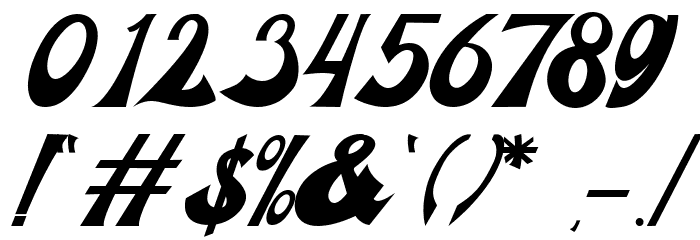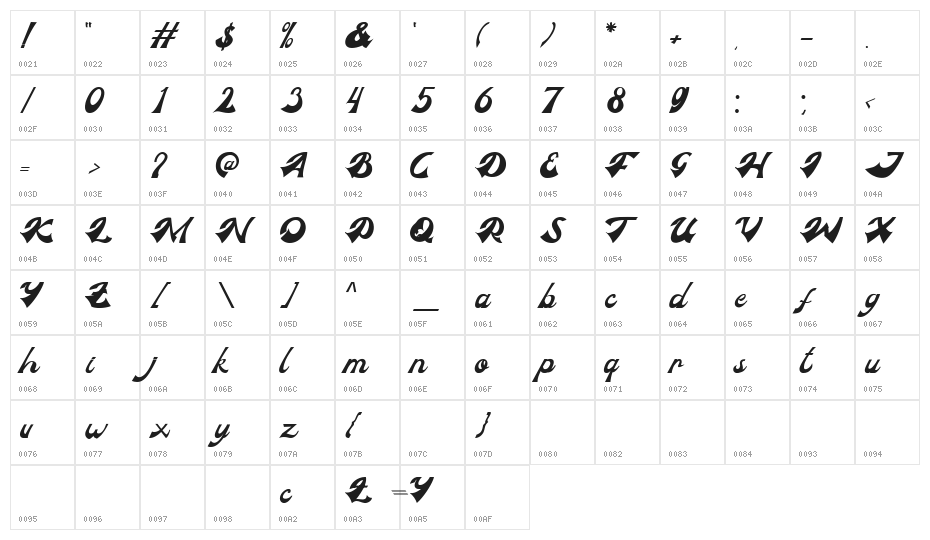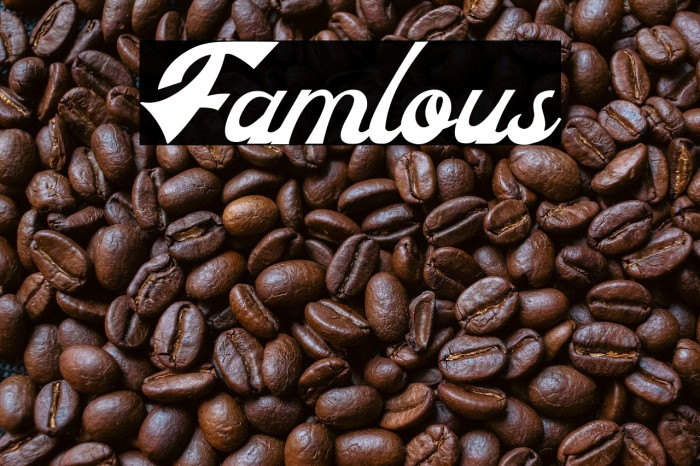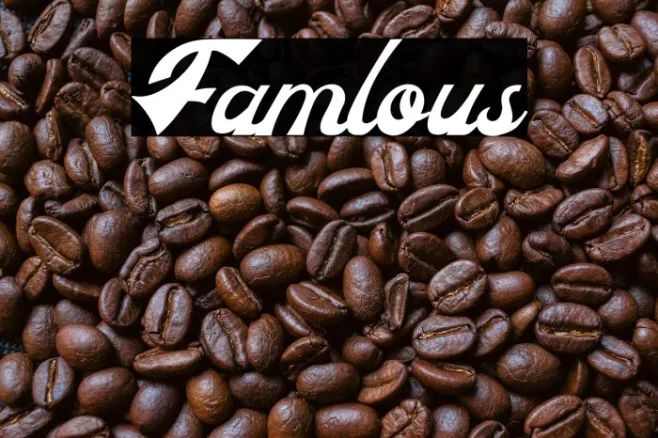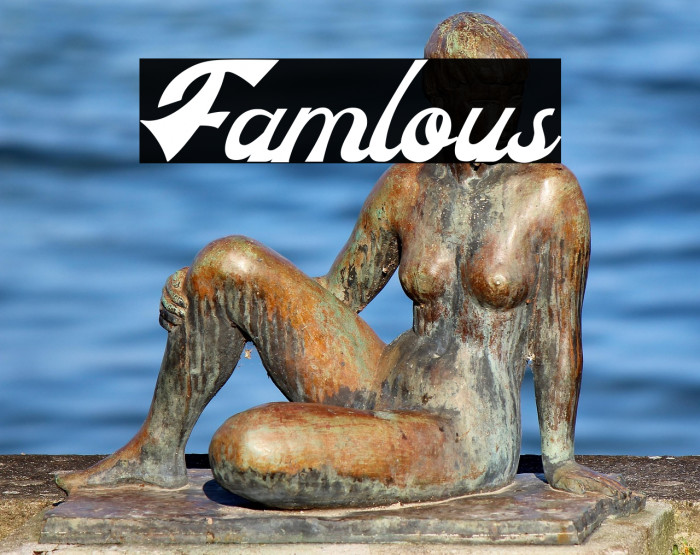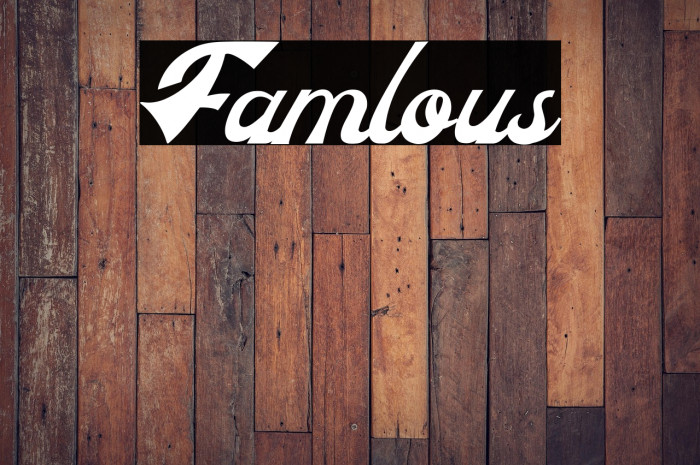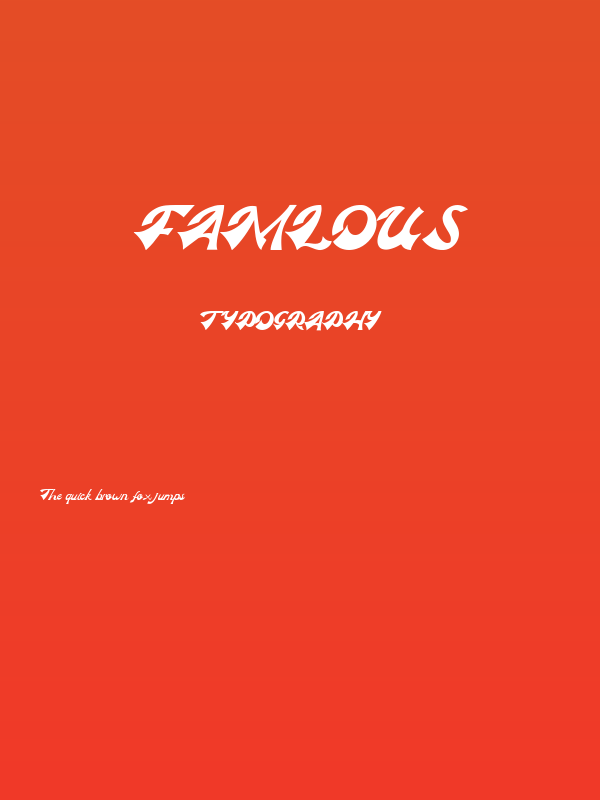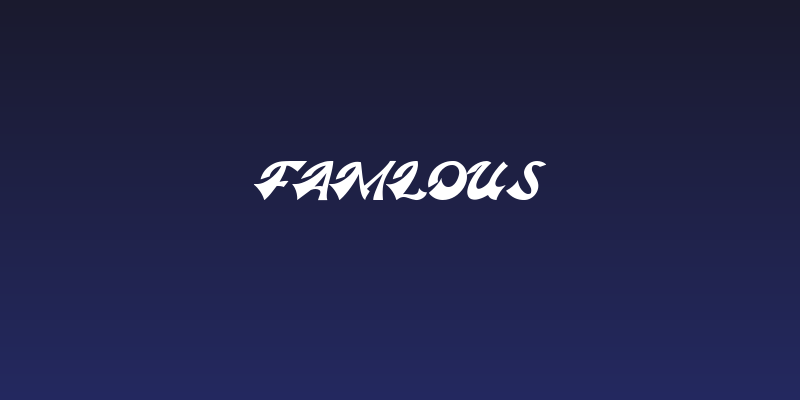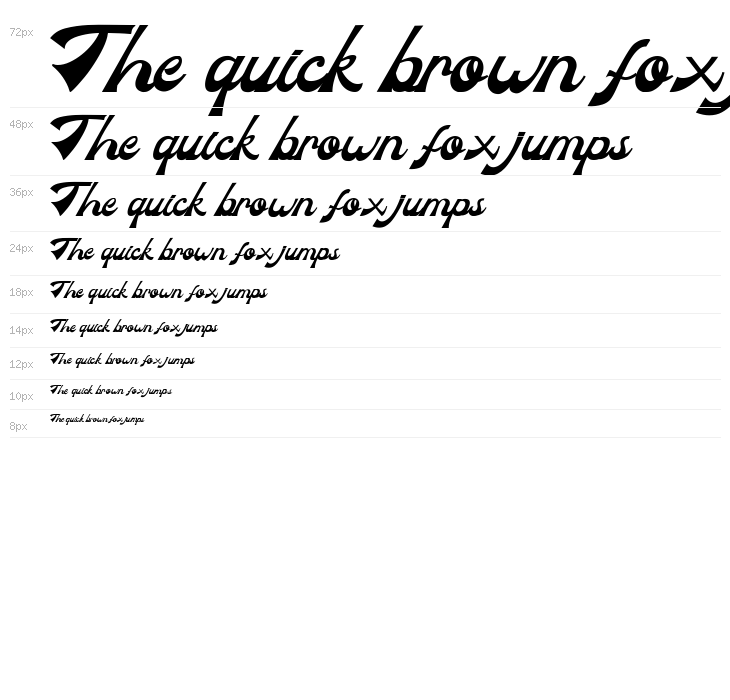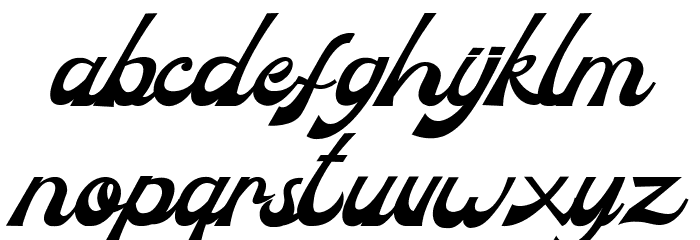
This font features a bold and dynamic script style with a strong sense of movement and flair. The uppercase letters are characterized by sharp, angular strokes that give them a dramatic and energetic appearance. The lowercase letters maintain a fluid and cursive style, enhancing the overall elegance of the font. Numbers and special characters are designed with the same boldness, ensuring consistency across all elements. The font's unique style makes it stand out, with a high contrast in stroke thickness that adds to its visual impact.
Use CaseLogos, Headlines, Branding
Proposed ProjectsIdeal for branding, logos, headlines, and any design project that requires a touch of elegance and boldness.